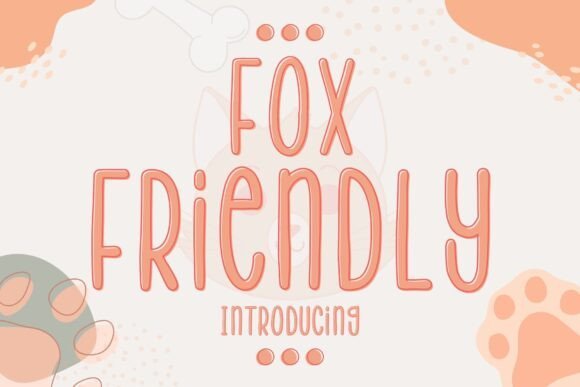
Unleash Your Creativity with Fox Friendly Font
Do you ever find yourself stuck in a design rut, struggling to find the perfect font to bring your vision to life? You’re not alone. We’ve all been there – pouring over font libraries, searching for that elusive combination of style and versatility. And then, like a breath of fresh air, you stumble upon the perfect companion for your creative endeavors: Fox Friendly Font.
This talented font is more than just a pretty face – it’s a trusted partner for designers who want to elevate their projects and make a lasting impression. Whether you’re working on a blog post, branding materials, or a special occasion invitation, Fox Friendly Font has got you covered. With its adaptability and wide range of applications, this font is a valuable addition to any designer’s toolkit.
Fox Friendly Font Key Features
- Unique Character Set: Fox Friendly Font features a unique character set that includes a wide range of punctuation marks, symbols, and special characters, making it ideal for use in creative and design-intensive applications.
- Scalability: Fox Friendly Font is designed to be highly scalable, allowing it to be resized without losing its clarity and readability, making it suitable for use in a wide range of applications, from small text to large headlines.
Designer Review: Fox Friendly Font
Overall, I’d say Fox Friendly Font is a decent addition to any designer’s toolkit. There are a few things that really stand out ✨.
- Unique Character Set: The font’s quirky character set adds a touch of personality to any project. From the cute fox faces to the clever punctuation marks, it’s a great way to add some whimsy to your design.
- High Legibility: Despite its playful nature, Fox Friendly Font is surprisingly easy to read, even at smaller font sizes. This makes it a great choice for body text or captions.
- Good Font Pairing Options: The font’s design lends itself well to pairing with other sans-serif fonts, making it a great choice for projects that require a modern look.
However, there are a few limitations to consider ⚠️.
- Limited Versatility: While Fox Friendly Font is great for playful projects, it may not be the best choice for more serious or professional projects.
- No Italic or Bold Weights: The font is available in a limited range of weights, which can make it harder to create emphasis or highlight important text.
Overall, I’d recommend Fox Friendly Font for designers who want to add a touch of personality to their projects. While it may not be the best choice for every project, it’s a great addition to any designer’s toolkit.
Fox Friendly Font is ideal for use in branding, logos, and titles where a playful and approachable feel is desired.
Some tips for getting the most out of Fox Friendly Font include:
- Using it in combination with bold or italic styles to add emphasis.
- Applying it to headings and titles to create a consistent visual identity.
- Experimenting with different font sizes and colors to achieve a unique look.